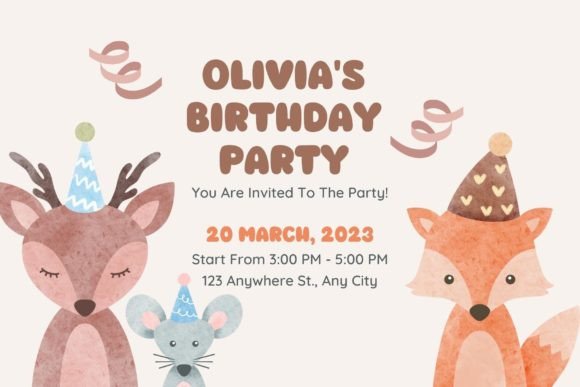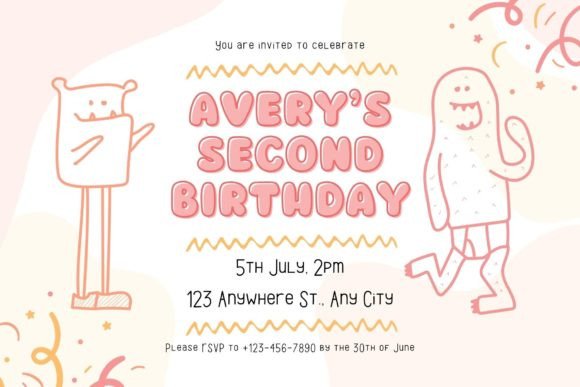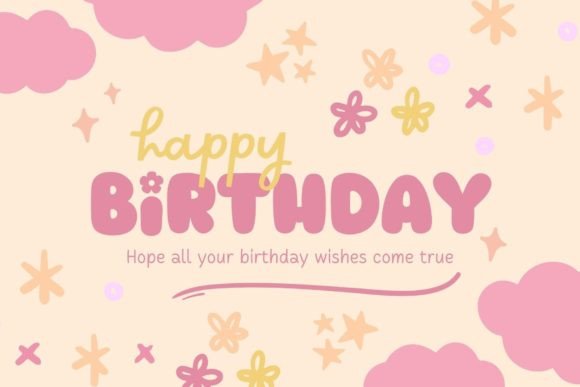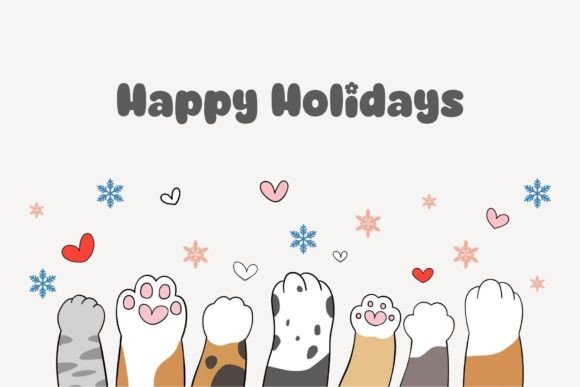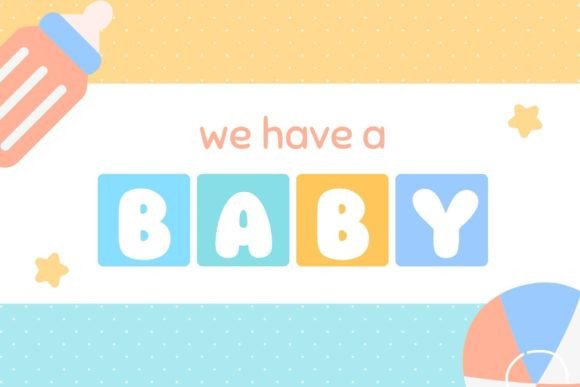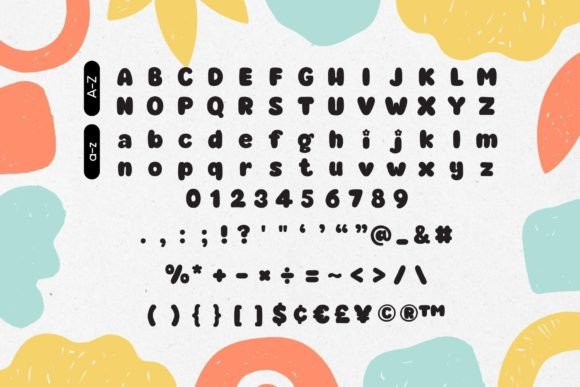
Introducing Fox Spring Font: The Ultimate Choice for Playful Designs
Are you looking for a font that can add a touch of playfulness and authenticity to your designs? Look no further than Fox Spring Font! This cute and colorful display font is perfect for any children activity or school project, and is sure to make your designs come alive.
What is Fox Spring Font?
Fox Spring Font is a chunky lettered font that is designed to bring a sense of fun and playfulness to your designs. Its bold and colorful letters are perfect for creating eye-catching titles, headings, and text that will grab the attention of your audience. Whether you’re working on a children’s book, a school project, or a craft design, Fox Spring Font is the perfect choice.
Key Features of Fox Spring Font
- Cute and Colorful: Fox Spring Font features bright and vibrant colors that are sure to add a pop of fun to your designs.
- Chunky Lettering: The font’s chunky letters are perfect for creating bold and eye-catching text that will stand out.
- Playful and Authentic: Fox Spring Font embodies a sense of playfulness and authenticity that is perfect for children’s activities and school projects.
- Easy to Read: Despite its chunky design, Fox Spring Font is easy to read and understand, making it perfect for designs that require clear communication.
Uses for Fox Spring Font
Fox Spring Font is a versatile font that can be used in a variety of designs, including:
- Children’s Books: Add a touch of playfulness to your children’s book with Fox Spring Font’s bold and colorful letters.
- School Projects: Make your school project stand out with Fox Spring Font’s chunky and eye-catching design.
- Craft Designs: Add a personal touch to your craft designs with Fox Spring Font’s playful and authentic style.
- Party Invitations: Create fun and playful party invitations with Fox Spring Font’s bold and colorful letters.
Tips for Using Fox Spring Font
Here are a few tips for getting the most out of Fox Spring Font:
- Use it for Headings: Fox Spring Font is perfect for headings and titles, so use it to add a touch of playfulness to your design.
- Experiment with Colors: Fox Spring Font looks great in a variety of colors, so don’t be afraid to experiment and find the perfect color for your design.
- Pair it with Other Fonts: Fox Spring Font pairs well with other fonts, so try pairing it with a simpler font for a bold and eye-catching design.
Fox Spring Font is a cute and colorful display font that is perfect for any children activity or school project. Its chunky lettered design and playful authenticity make it the perfect choice for designers and crafters looking to add a touch of fun to their designs. With its ease of use and versatility, Fox Spring Font is sure to become a favorite in your font collection.